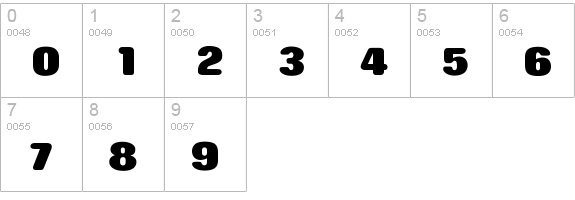
Stones font is a modern and versatile typeface that exudes a sense of strength and durability. Its rugged edges and bold presence make it a perfect choice for projects that require a touch of rawness and authenticity. With its unique character and distinctive style, Stones font adds a touch of sophistication to any design. Best of all, Stones font is available for free download at FontsMarket.com, making it easily accessible to designers and creatives looking to add a touch of uniqueness to their projects. Whether you're working on branding, packaging, or editorial design, Stones font is sure to make a lasting impression. Download it today and unleash the power of this striking typeface in your next project.